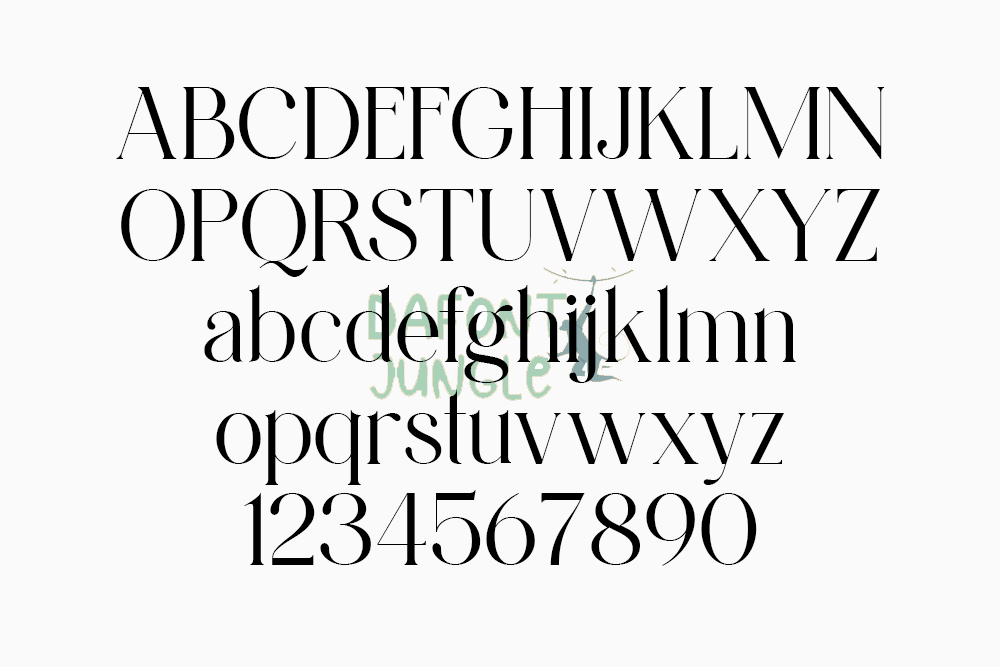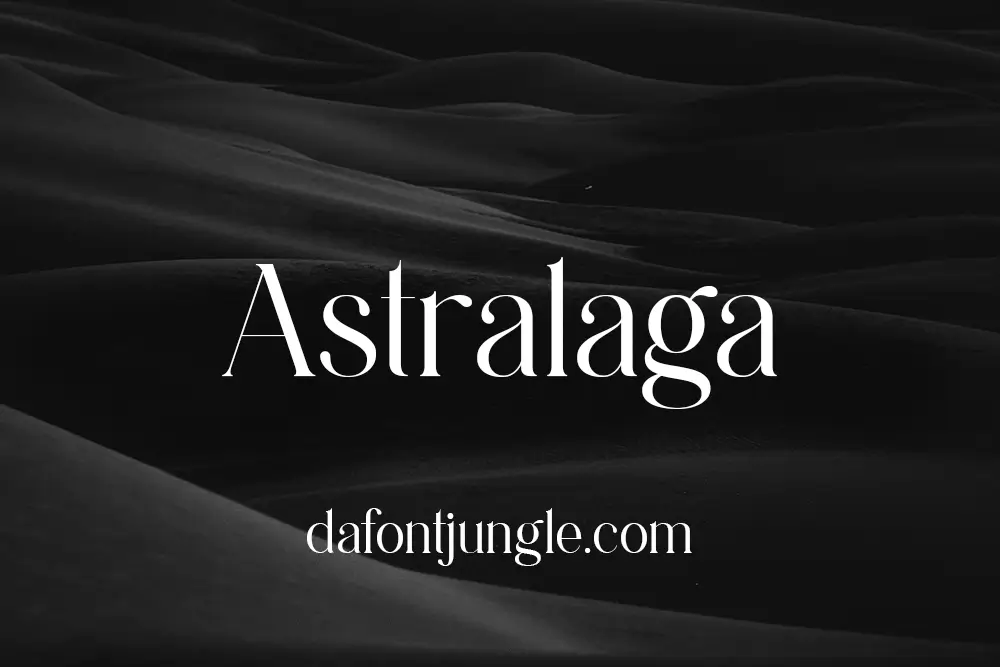
Astralaga – Elegant Hand-Drawn Serif Font
Astralaga is a refined serif font family made for timeless designs. Every letter was hand-drawn with care, giving the font a personal and graceful touch. It features high contrast strokes that bring elegance to both modern and classic layouts.
This family includes five weights, over 50 alternates and ligatures, and free logo templates. You can use Astralaga for branding, wedding designs, magazine covers, and packaging. It fits any project that needs beauty and style.
– Clean and classy serif design